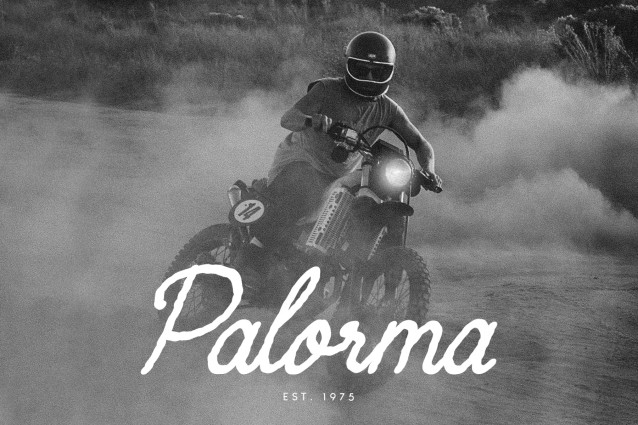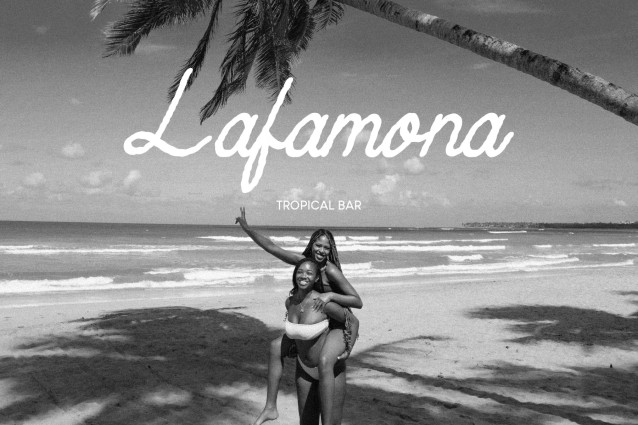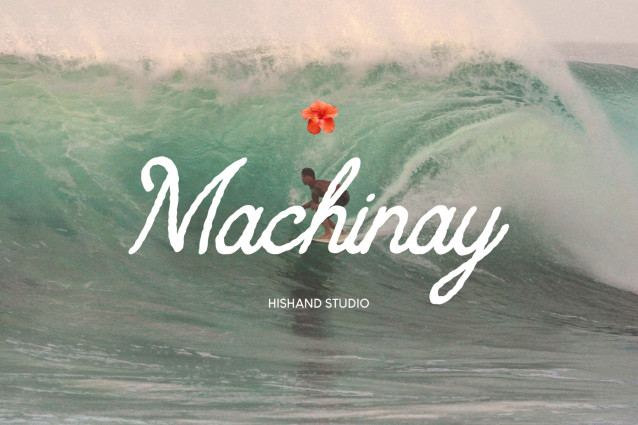
Machinay is a natural script typeface built for a relaxed, tropical mood. Its strokes flow the way handwriting does when there’s no rush, slightly loose, a little uneven, with soft curves and gentle connections between letters. Instead of the polished uniformity of a digital script, Machinay Script Font keeps small imperfections that make it feel handwritten and human, the kind of lettering you’d expect from someone writing slowly, without a ruler or a deadline.
The letterforms lean casually, with varied stroke weight and open, breathable spacing that gives the whole typeface an airy, sun soaked feel. Ascenders and descenders swing with a bit of extra motion, and the connections between letters are soft rather than mechanical, so words read like a single relaxed gesture instead of stacked characters. This gives Machinay a warmth that most script fonts, built for precision and consistency, tend to lose.
Machinay suits any project that wants to feel warm, personal, and a little sun worn rather than sleek or corporate. It works well for resort and hotel branding, tropical drink and skincare labels, surf and swimwear apparel, travel and vacation logos, beach club signage, wedding stationery with a barefoot, easygoing elegance, and packaging that wants to feel handmade rather than mass produced. It also pairs well with clean sans serifs for a casual, contrast driven layout, letting Machinay carry the emotion of a design while a simpler typeface handles the details.
Because of its loose, organic rhythm, Machinay reads best at larger sizes, headlines, logos, quotes, and short phrases where its character has room to breathe. It’s less suited to long paragraphs, where its irregularity can slow readability, but that’s by design. Machinay Script Font it’s meant for the moments where a brand wants to feel inviting rather than efficient.